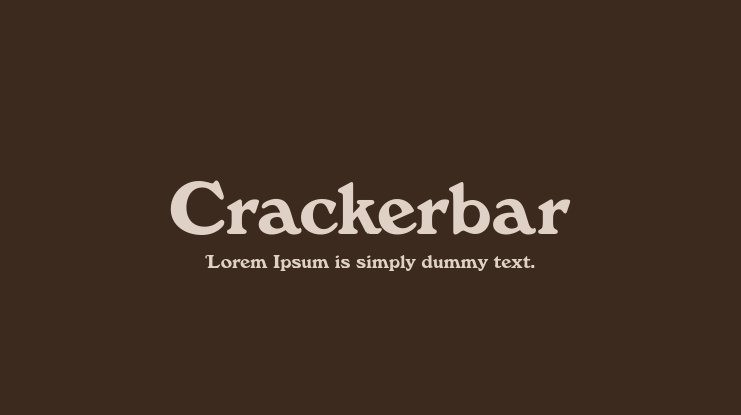
Crackerbar Serif Font, This font was created for all forms of business and branding such as clothing, logos, skate boards and others according to your needs.